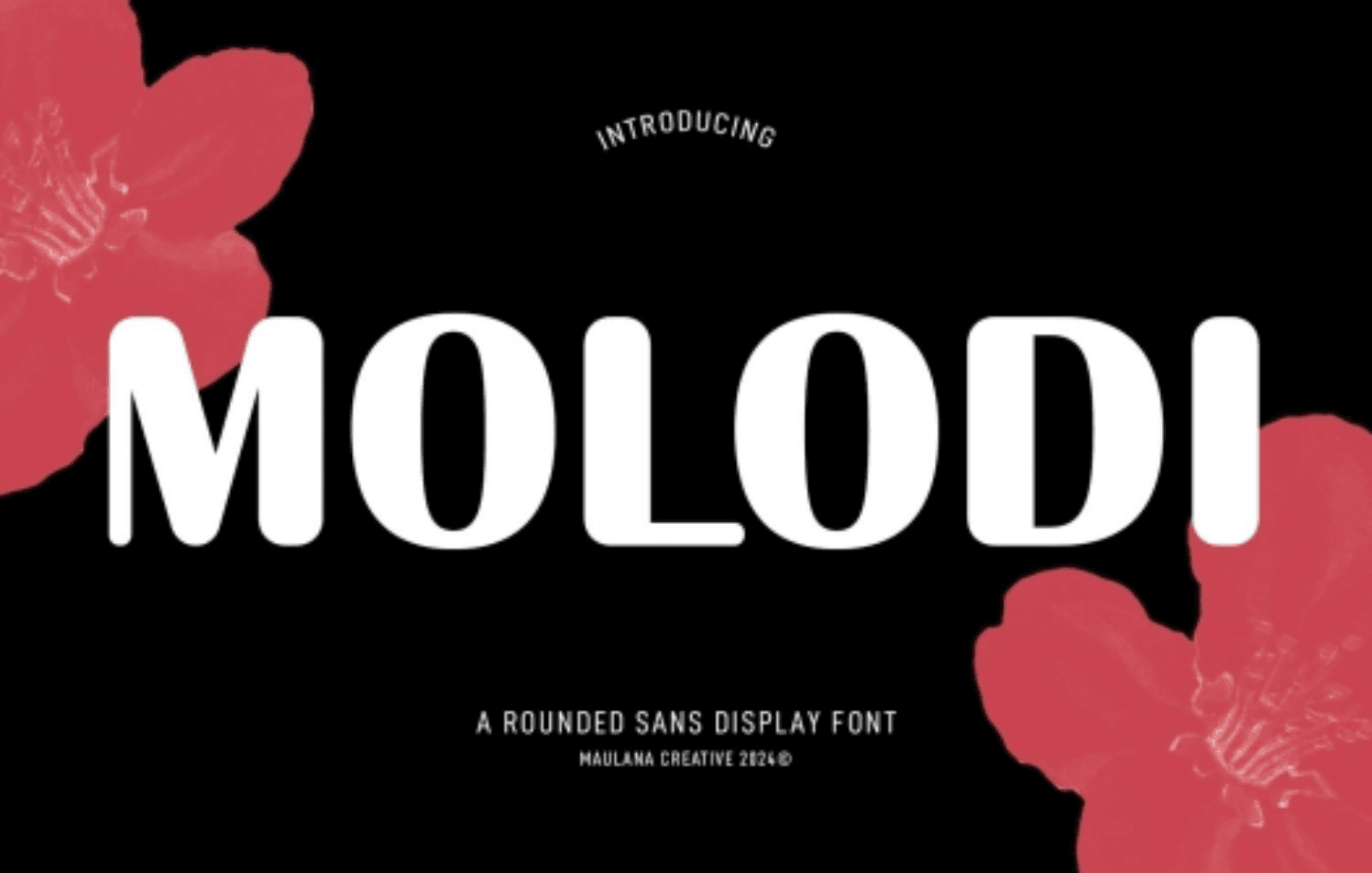
Molodi Rounded Display Font
Classification: Sans-Serif
Molodi – an innovative font designed by Maulana Creative to infuse your designs with a touch of enchantment. Infused with boldness and creativity, Molodi combines the best of both worlds to deliver a font that is not only visually striking but also versatile in application. From crafting attention-grabbing logos to setting the mood for engaging social media content, Molodi is the all-in-one solution to your typography needs. Add a touch of elegance and sophistication to your design projects with Molodi, the font that promises to take your creative endeavors to new heights.